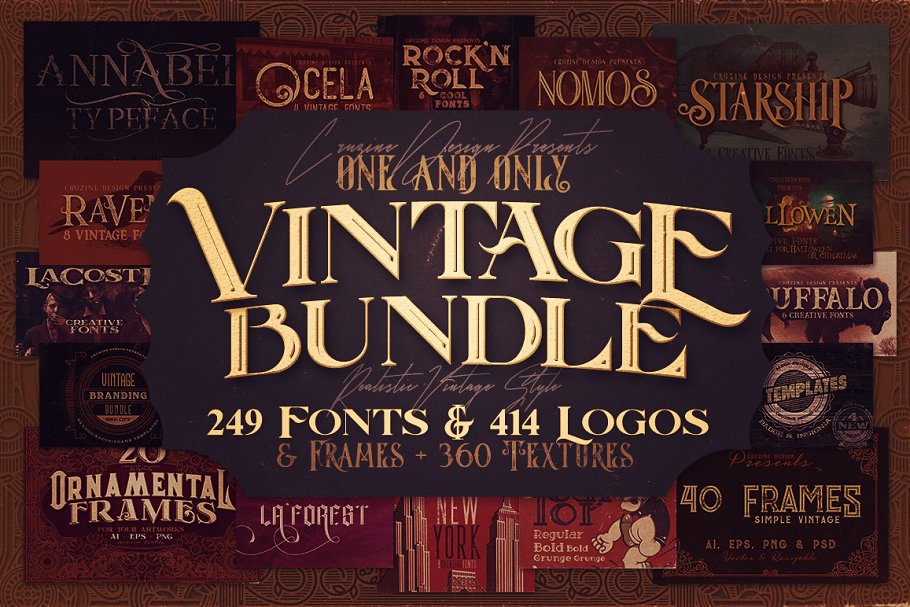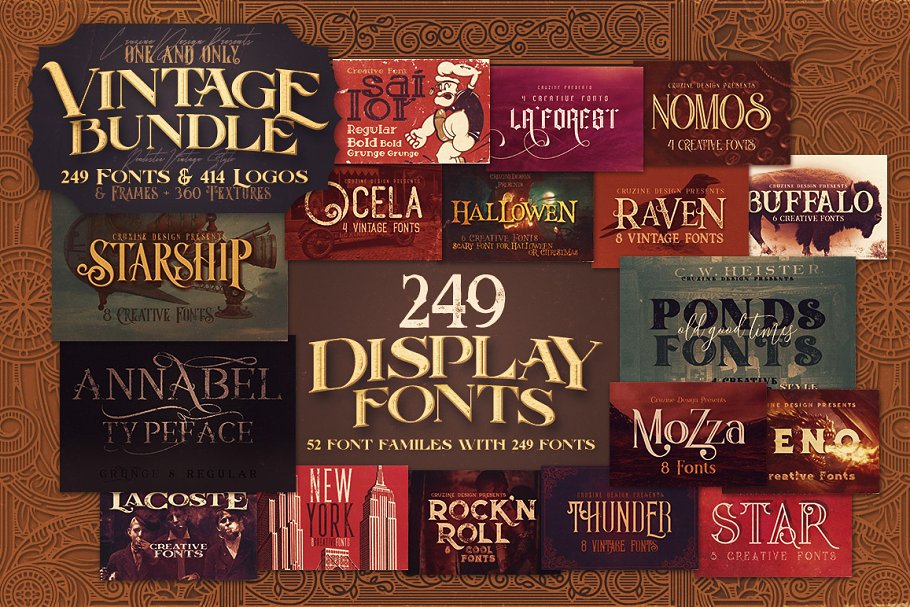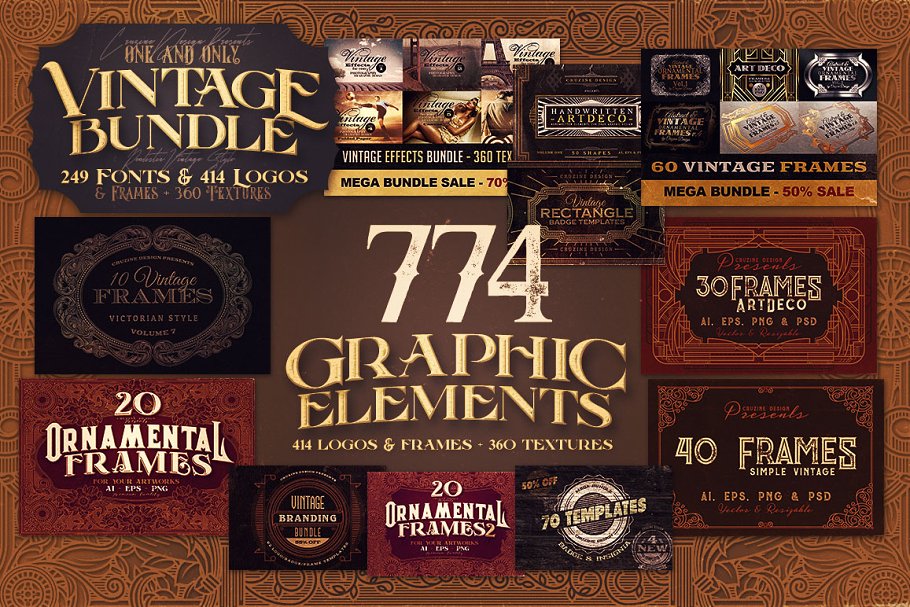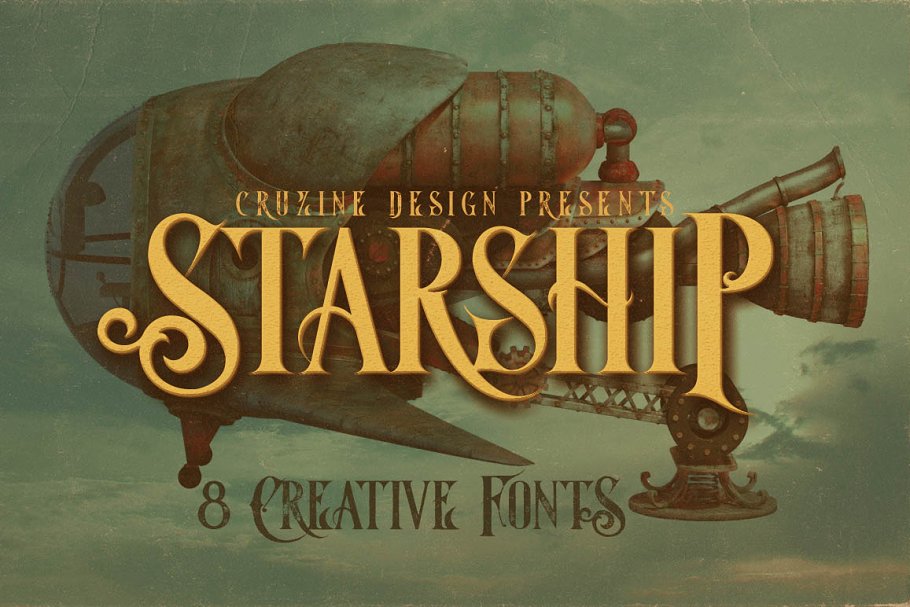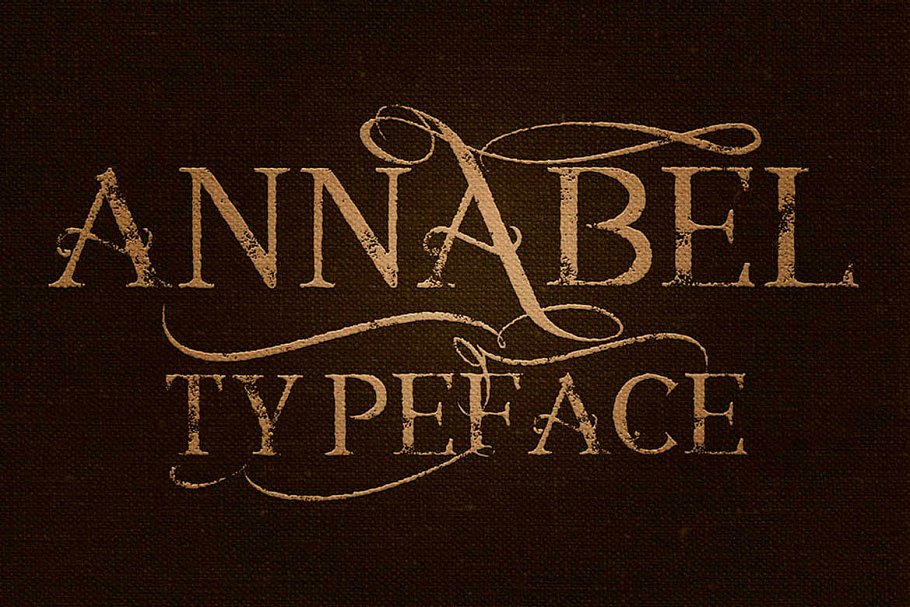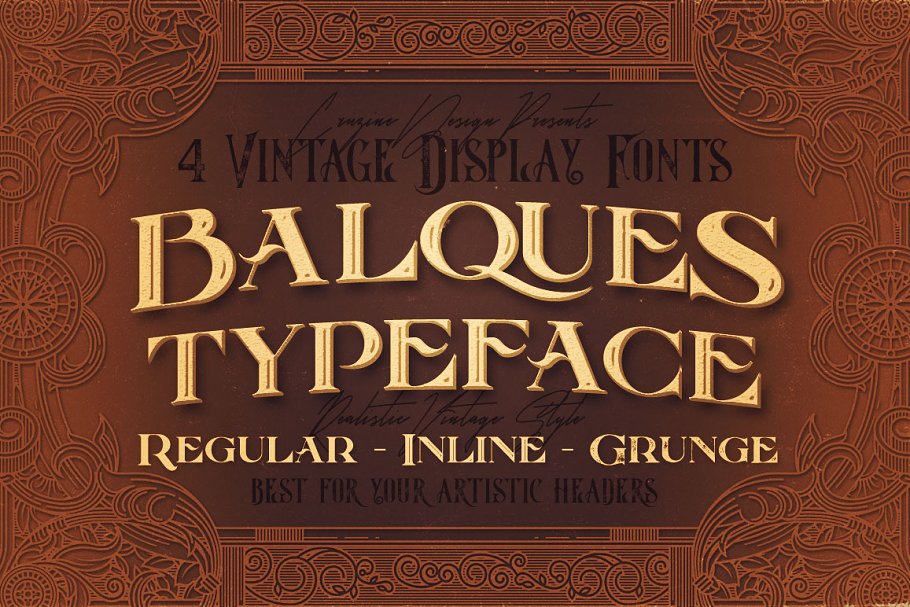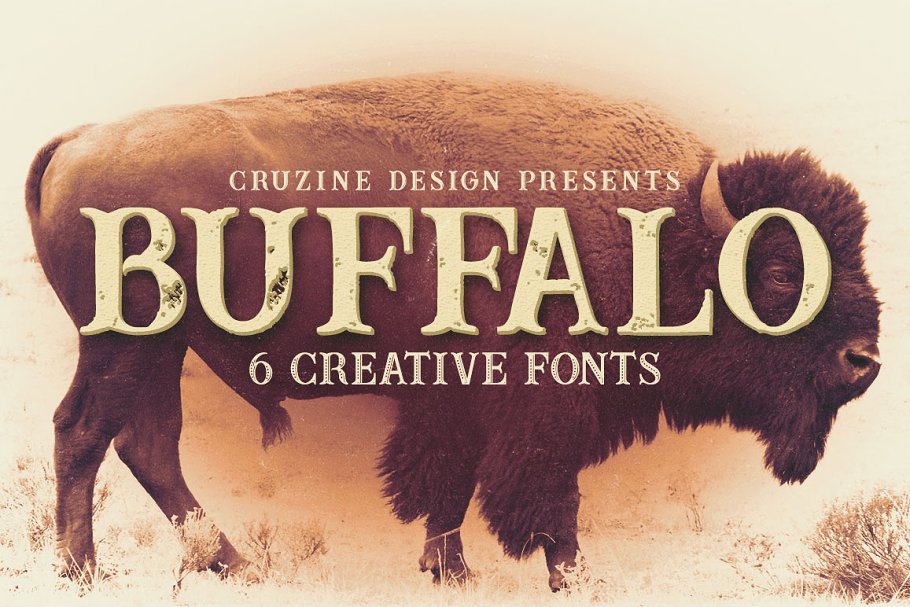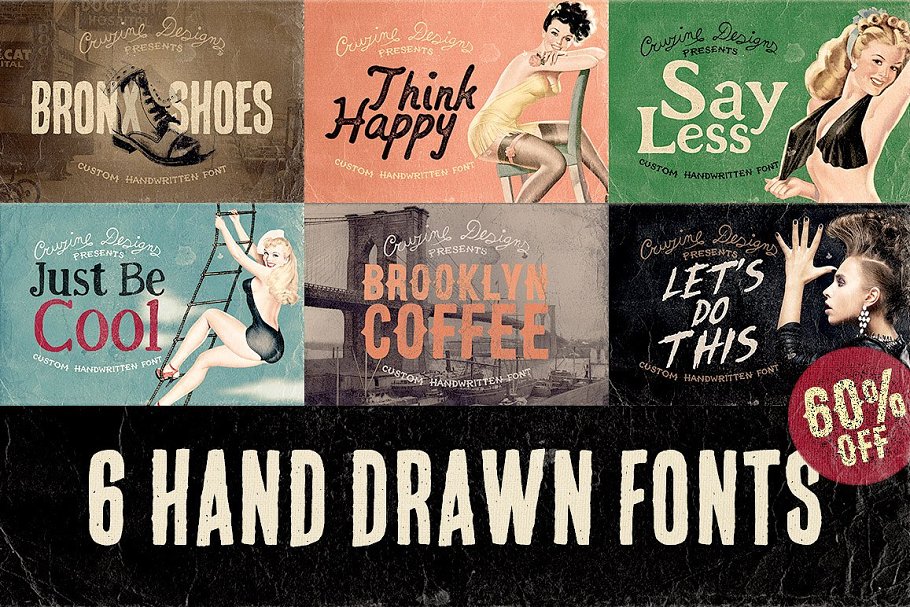
About the Bundle Logos Font
SALE – enjoy this HUGE bundle with HUGE sale 😉 Original bundle price was $29 – right now for limited time only $19!HUGE Vintage style bundle with 249 display fonts, 414 logo-badge-frame graphic elements & 360 grunge textures or overlaysRetro, vintage, grunge style display fonts & lot of vintage branding graphics & also grunge textures for your new projects